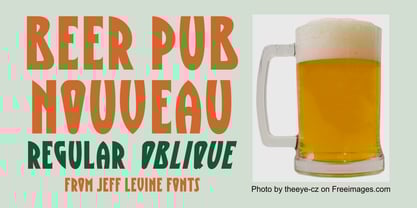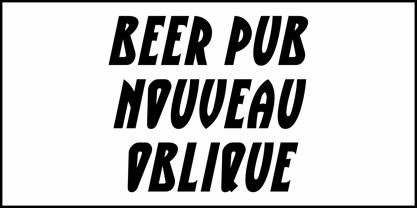
Beer Pub Nouveau JNL
by Jeff Levine
The Beer Pub Nouveau JNL Font Family was designed by Jeff Levine and published by Jeff Levine. Beer Pub Nouveau JNL contains 2 styles and family package options. More about this family
A 1911 beer poster for the Italian brew Birra di Borgofranco featured some beautiful Art Nouveau hand lettering in a condensed sans serif style.
This inspired the typeface Beer Pub Nouveau JNL, which is available in both regular and oblique versions.
About Jeff Levine
Jeff Levine has been in love with lettering since the third grade, when a schoolmate brought a lettering stencil into class. He has worked in both the graphics and music industries, and began his work with digital type via his own site, which hosted over one hundred free dingbat fonts until its retirement in 2009. Although these fonts were experimental at best, Jeff received "thank you" letters from points all over the world for making his designs available. Encouraged by these responses, Jeff decided to set his sights on creating interesting and commercially viable type fonts.